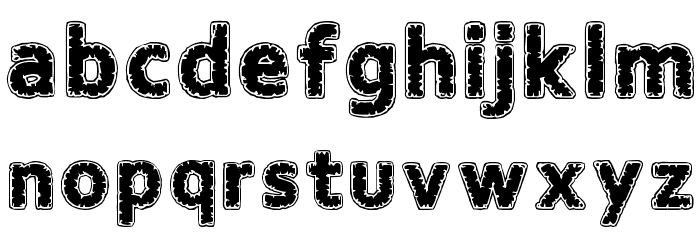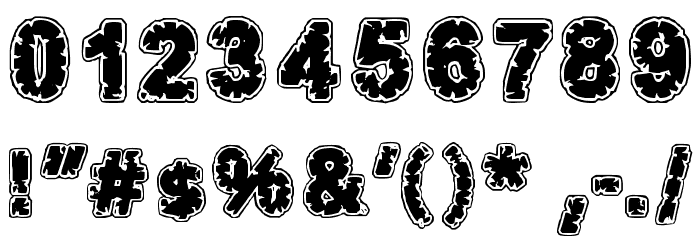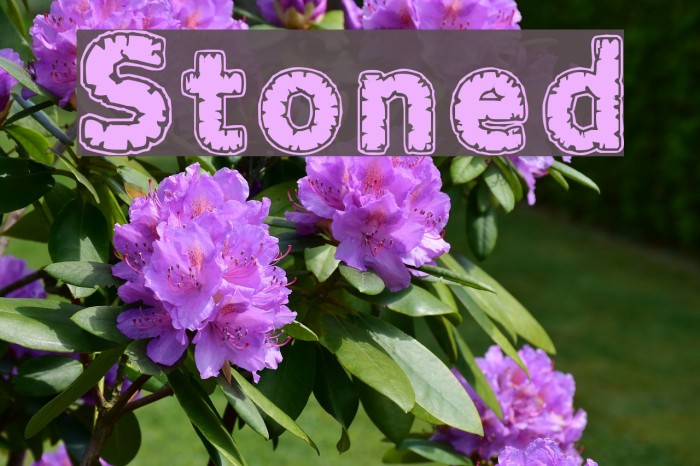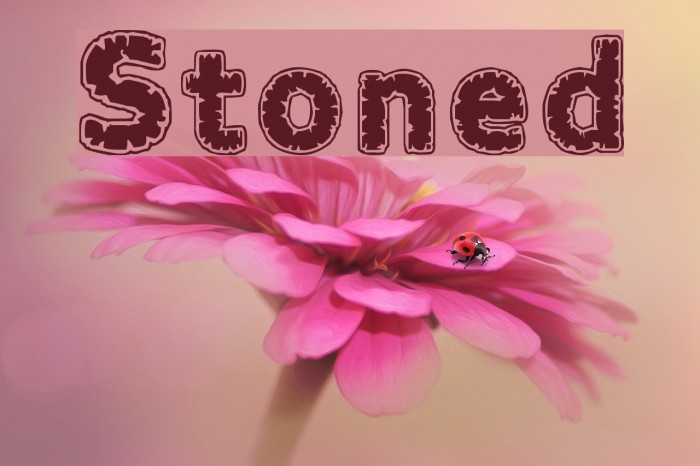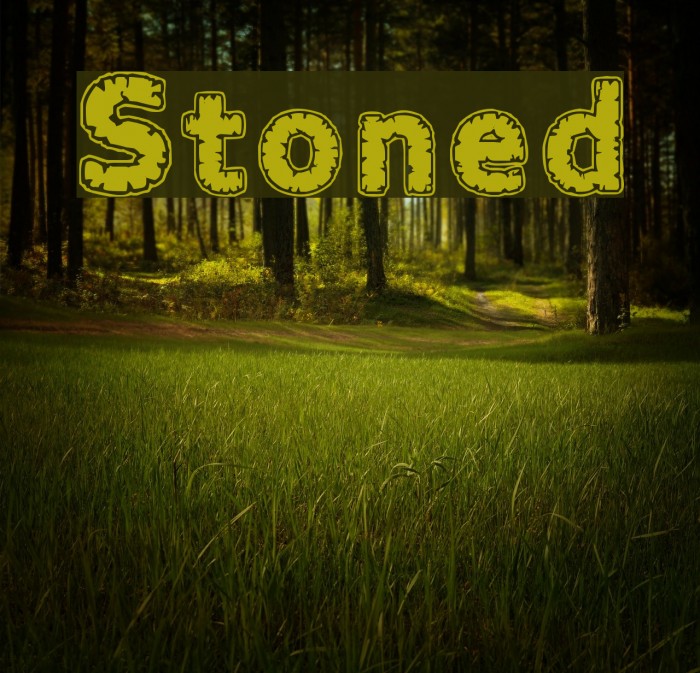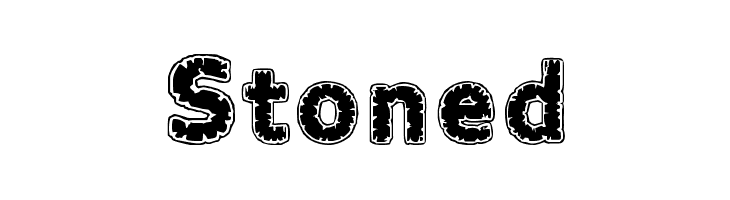
Stoned Font
This font features a bold and rugged design with a distressed texture that gives it a unique, stone-like appearance. The characters are thick and substantial, with irregular edges that suggest a hand-carved or weathered look. This style is particularly eye-catching and can add a dramatic flair to any design. The uppercase and lowercase letters maintain a consistent weight, while the numbers and special characters share the same textured effect. The overall aesthetic is both bold and playful, making it suitable for creative and unconventional projects.
A bold, textured font with a rugged, stone-like appearance.
- Font: Stoned
- Proposed Projects: Ideal for posters, album covers, video game graphics, or any project needing a bold, textured look.